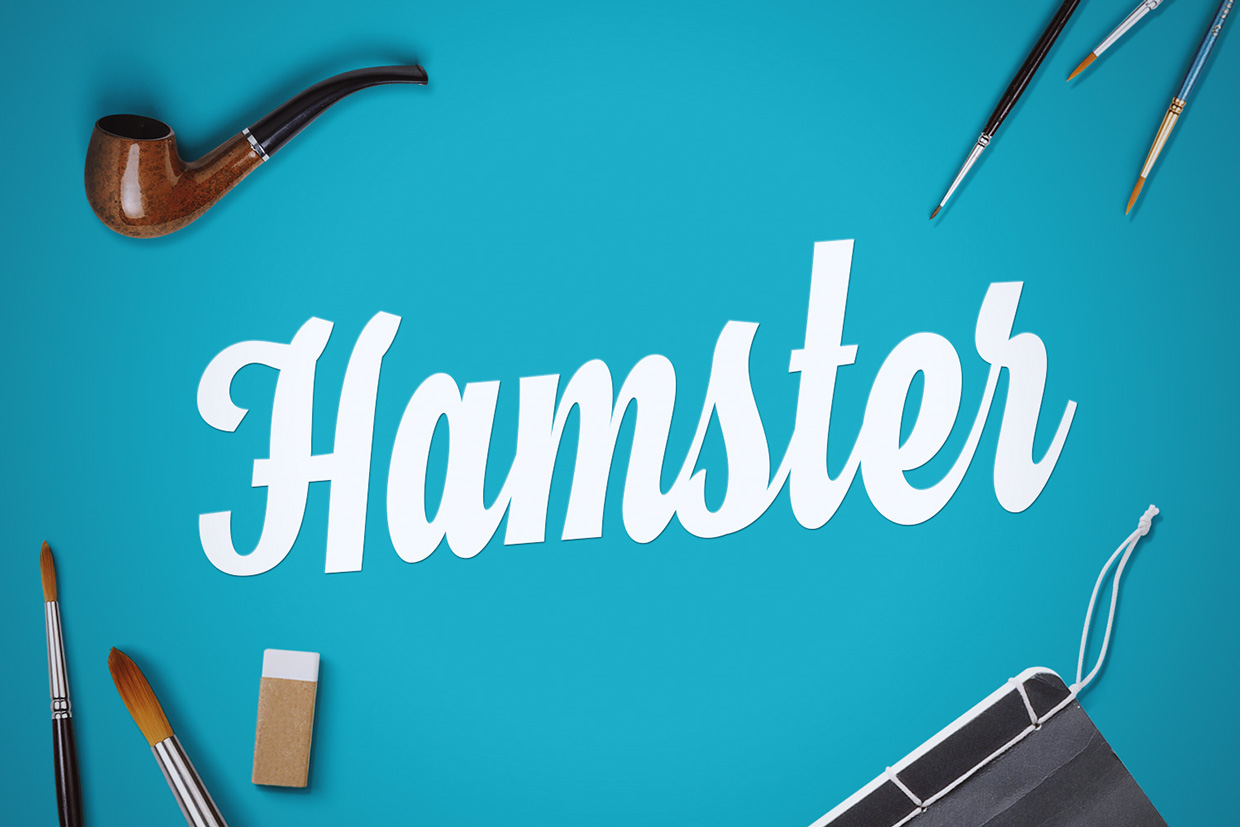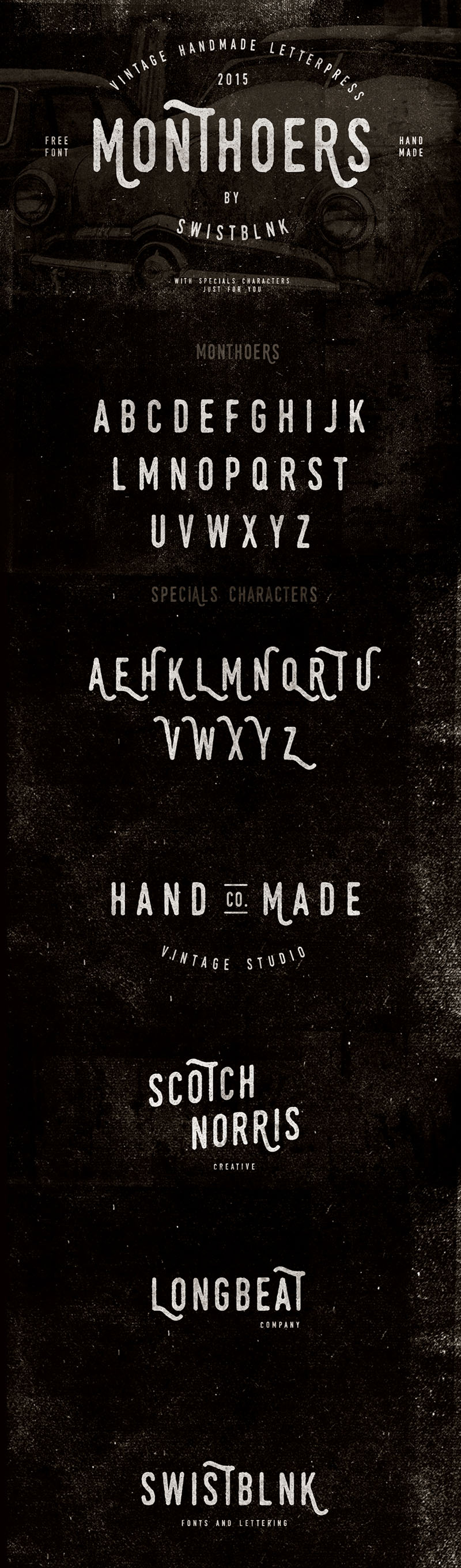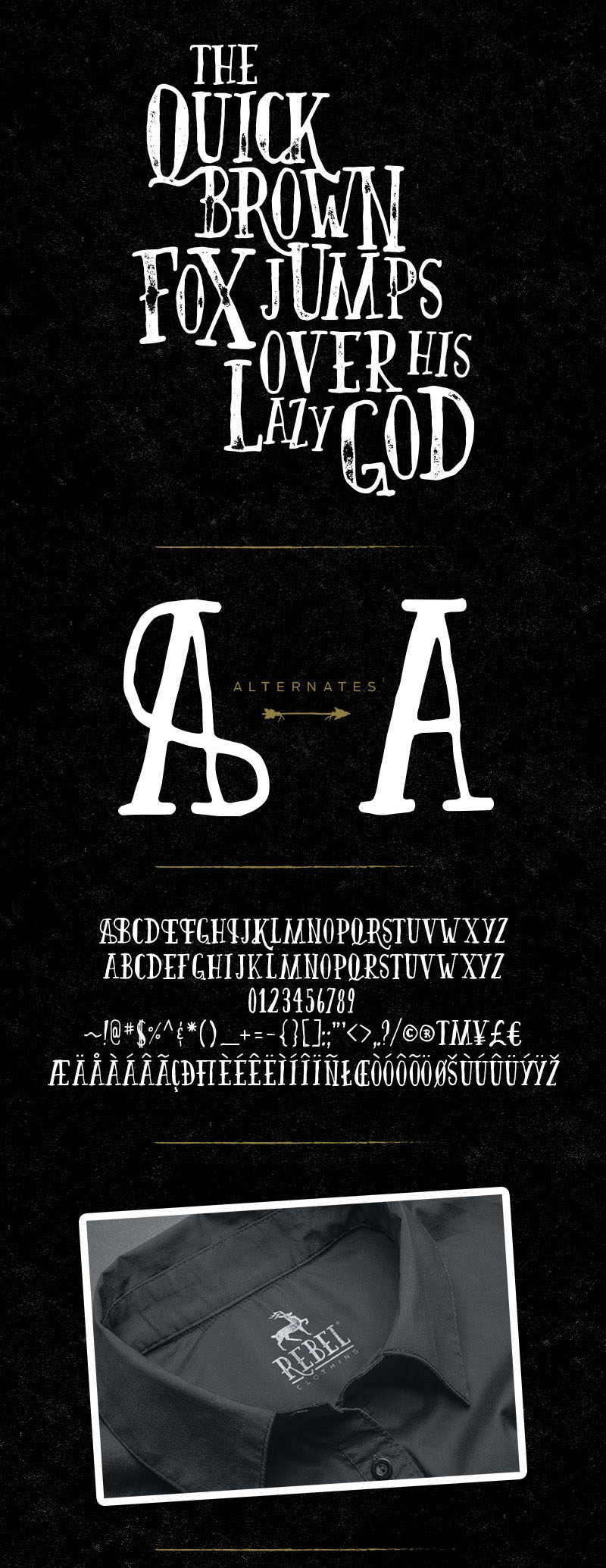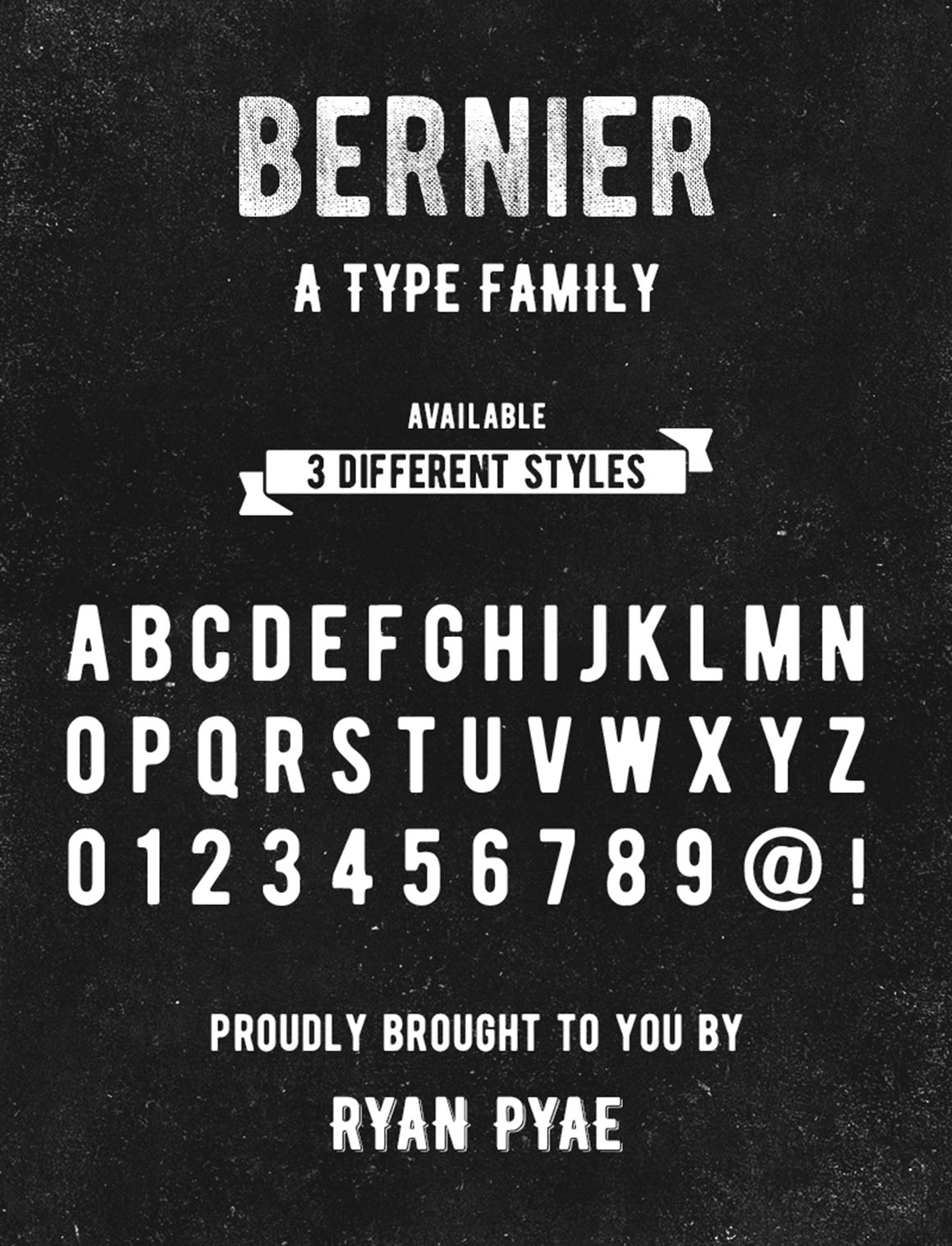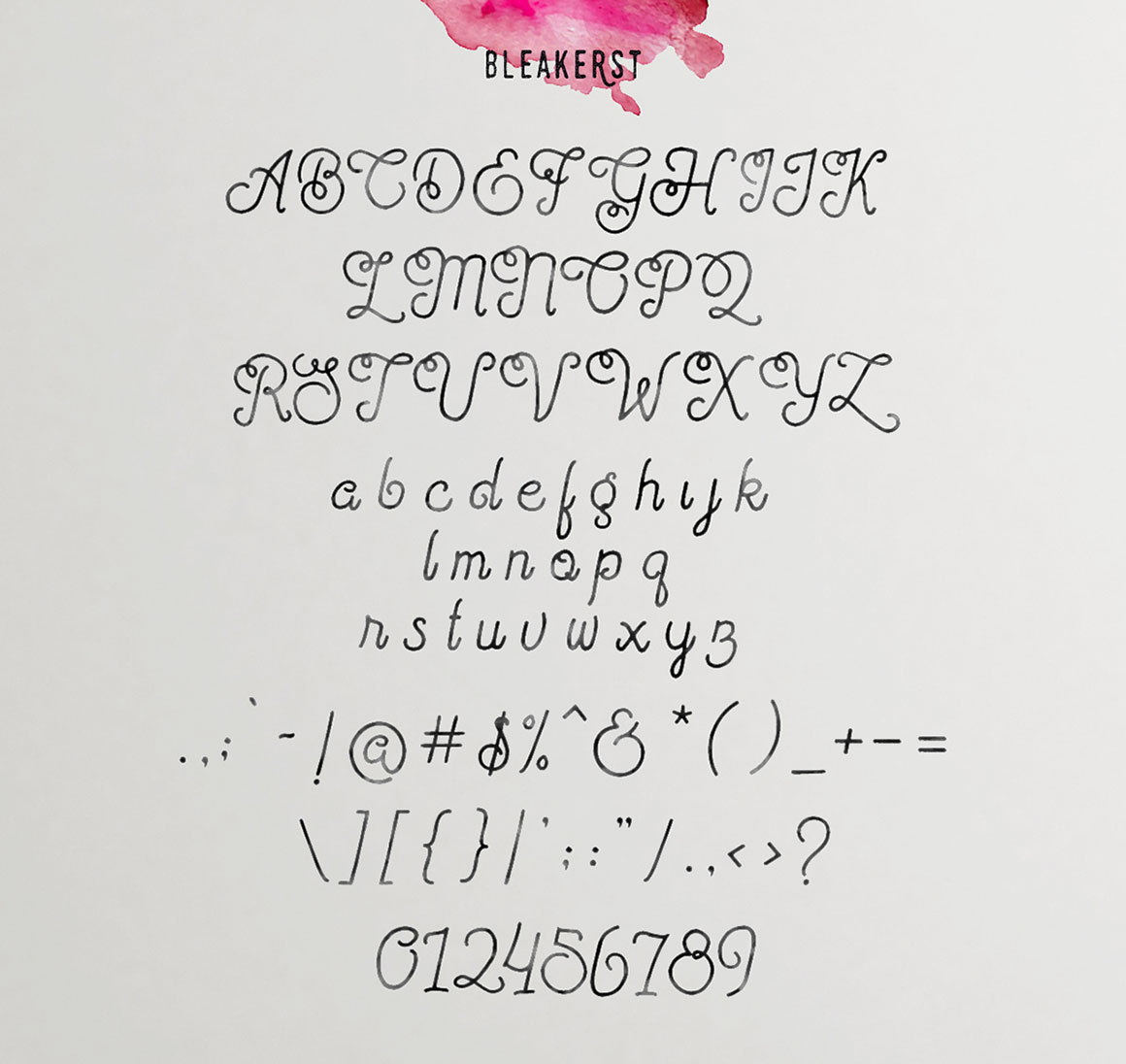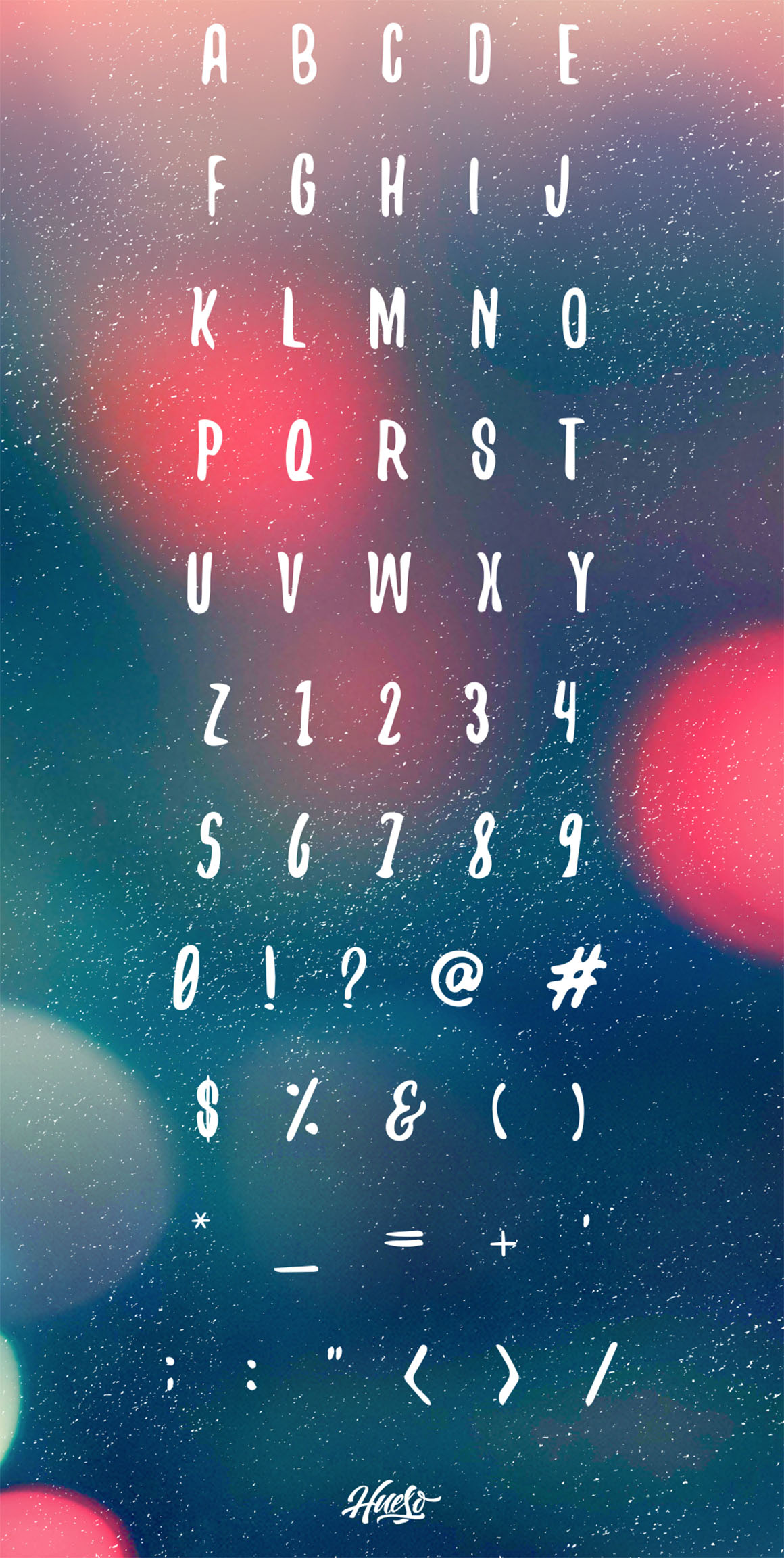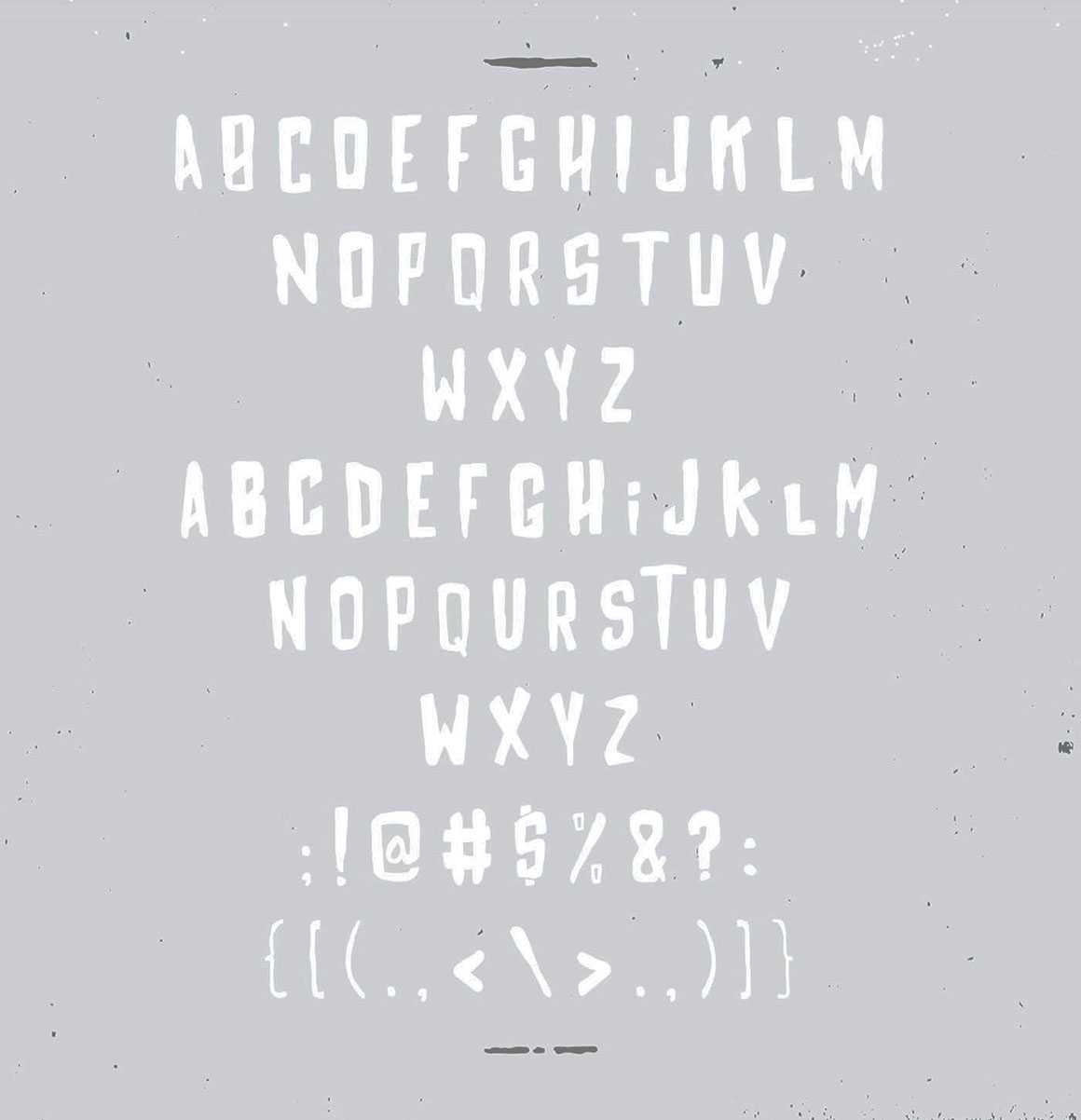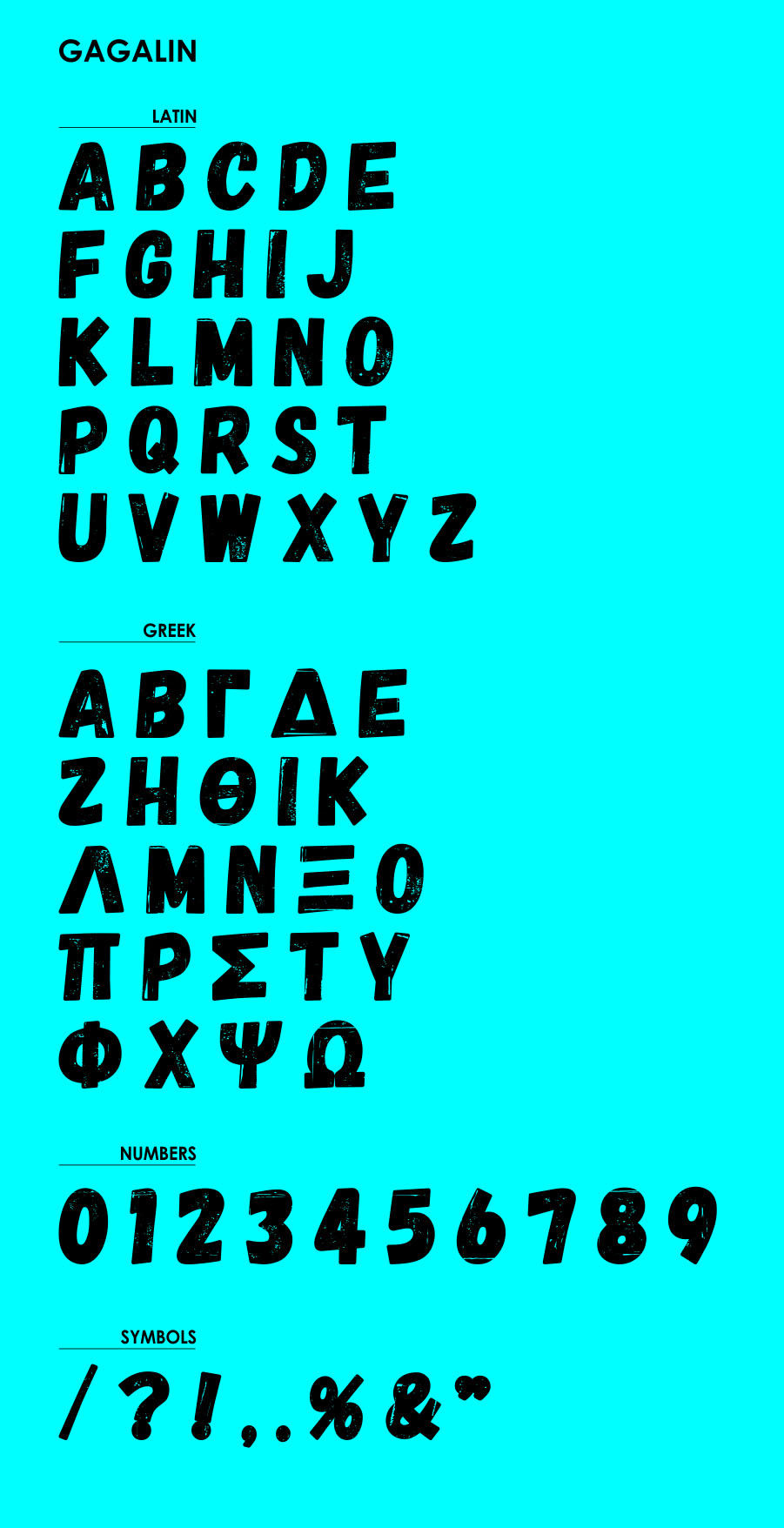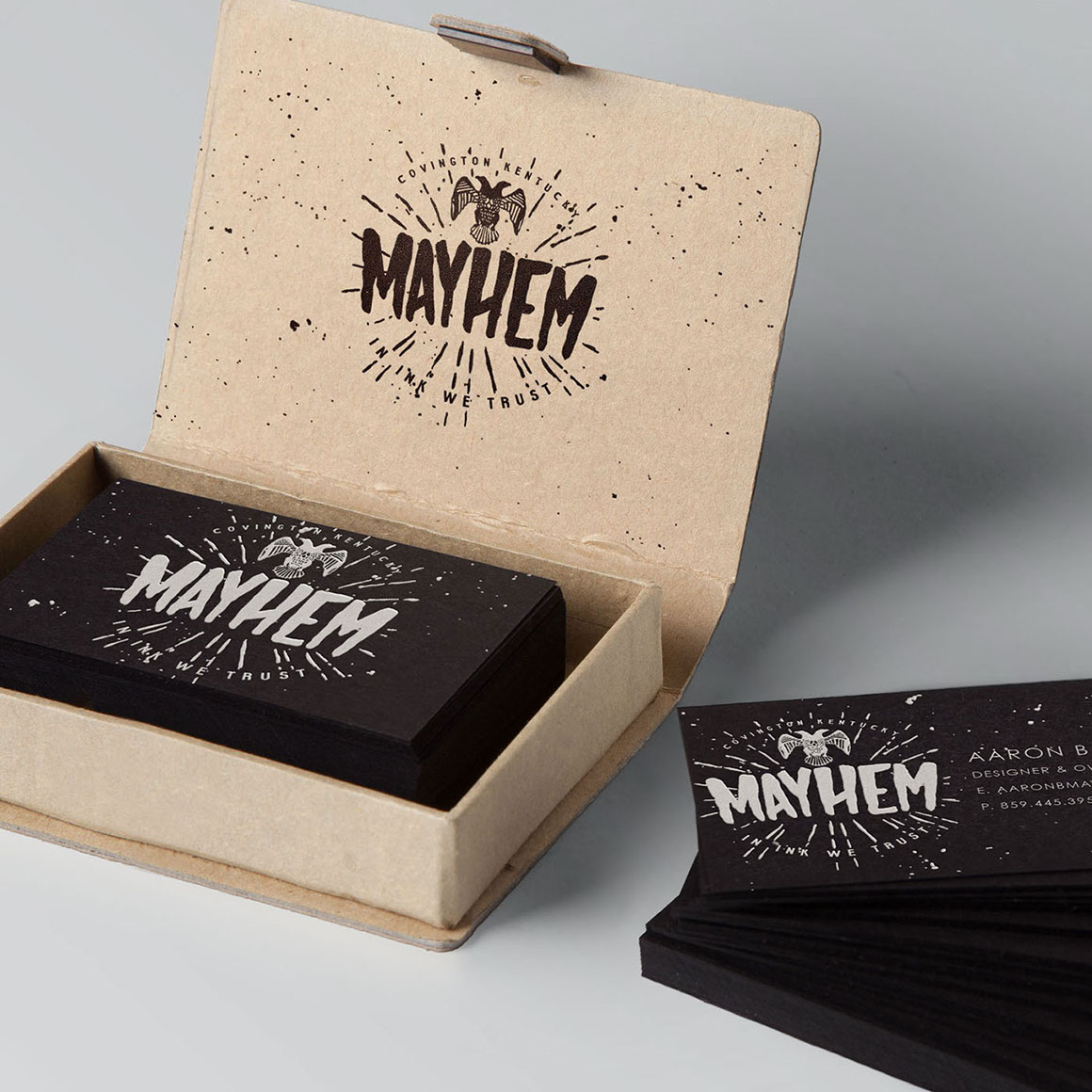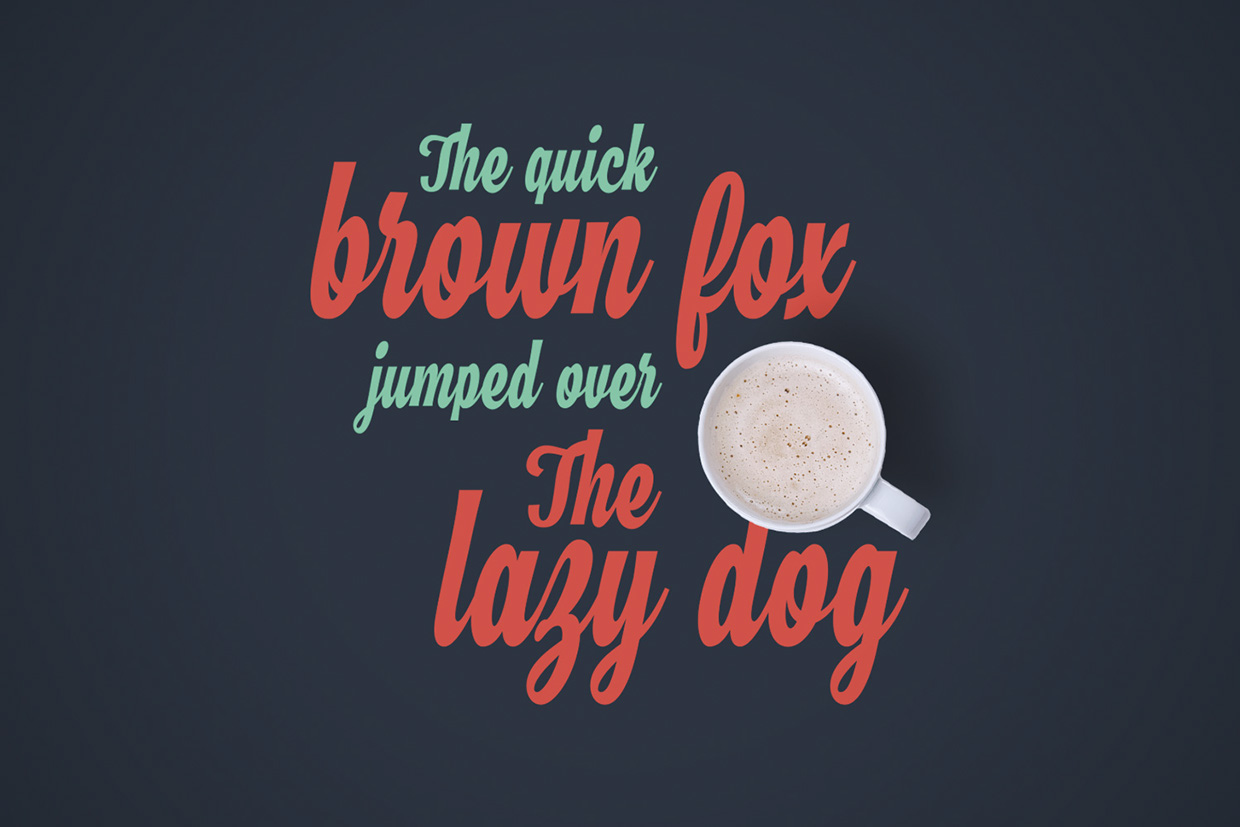
Dealjumbo Free Bundle vol.1 – 25 Custom Fonts!
Dealjumbo Free Bundle vol.1 contains 25 amazing custom fonts from 17 talented designers for FREE!
25 Amazing & FREE Custom Fonts
1. Oldways – Free Retro Font by Artimasa
This retro style custom font is from Artimasa. Oldways is a retro font that combines old western typography with the modern design style. It is highly suitable for poster, branding, logo, etc. You can easily give the feel of retro design style in a modern way into your project. Oldways font available in 2 styles: Regular and Italic. The good news is they’re both free to download and used in any personal or commercial projects. You can find the download link at the bottom of this post, enjoy!
2. Streetwear – Free Retro Font by Artimasa
This retro style custom font is from Artimasa. Streetwear is bold and stylish retro inspired script typeface suitable for logo, poster, branding, packaging and t-shirt design. It looks like 1960s and 70s fashion and sport related typeface, unique and fun at the same time. You can access Streetwear’s alternate characters by using OpenType savvy program such as Adobe Illustrator and InDesign.
3. Nurjan – Free Bold Font by Twicolabs
This retro style and bold custom font is from Twicolabs. Download and enjoy 😉
4. Dollar Bill – Free Bold Font by Twicolabs
This retro style and bold custom font is from Twicolabs. An all caps font / typeface that borrowed the letter from the money (dollar) and bank certificates. Also contained numerals and punctuations characters. Download and enjoy 😉
5. Monthoers – Free Vintage Grunge Font by Agga Swist’blnk
This retro/vintage grunge style custom font is from Agga Swist’blnk. An all caps font / typeface with amazing vintage style. Also contained special characters. Download and enjoy 😉
6. Runaway – Free Hand Drawn Font by Iulian Maftei
This retro/vintage hand drawn custom font is from Iulian Maftei. An all caps font / typeface with cool style. Download and enjoy 😉
7. Blenda Script – Free Retro Font by Seniors
This retro style and bold custom font is from Seniors. Blenda Script is a free experimental font inspired by lobster font. This bold vintage script can be used for various purposes: in magazines, posters, logos, badges etc. Download and enjoy 😉
8. Gist Light – Free Retro Font by Yellow Design Studio
This cool retro style and light custom font is from Yellow Design Studio. Download and enjoy 😉 Full version of this amazing font is here!
9. Good Vibes – Free Script Font by Cruzine Design
Free handdrawn script font from Cruzine DesignDownload & Enjoy 😉
10. Get Coffee – Free Script Font by Cruzine Design
Free handdrawn script font from Cruzine DesignDownload & Enjoy 😉
11. Not Perfect – Free Handwritten Font by Cruzine Design
Free handdrawn & cool script font from Cruzine DesignDownload & Enjoy 😉
12. Harlott – Free Handwritten Retro Font by Artimasa
This retro style custom font is from Artimasa. Inspired by classic brush lettering, Harlott Script gives an impression of straight brush calligraphy and natural hand lettering. It can be used as a logo, part of branding, headline, any display purposes, t-shirt design, etc. Harlott Script also contains of diacritic symbols that support many european languages.
13. Hamster – Free Script Font by Artimasa
This script custom font is from Artimasa. Hamster is a cursive typeface inspired by brush lettering and traditional sign painting. Suitable for branding/identity, clothing/t-shirt design, signage, headlines, poster, etc. Hamster Script was crafted carefully to equalize the dynamic flow and it’s legibility.
14. Nickainley – Free Script Font by Seniors
Nickainley  is a Monoline Script font from Seniors. Handwriting font with a touch of classic and vintage. In uppercase, lowercase characters, numeral and punctuation. Can be used for various purposes: logos, badges, wedding invitations, t-shirts, letterhead, signage, labels, news, posters, badges etc. Download and enjoy 😉
15. Bukhari – Free Script Font by Mikrojihad
This cool script custom font is from Mikrojihad. Bukhari Script is a bold monoline cursive font. Very usefull for various design project, for web or printing, such as a Logotype, Posters, Badges, Signage, Bussiness Card, T-shirt Design, or it can be anything. Bukhari Script contains almost 380 glyphs with several OpenType Features; Contextual Alternate, Stylistic Alternate, Standard Ligature & Fraction. The OpenType Feature can be used to create your own custom typography of  your design. How to use OpenType? Download and enjoy 😉
16. Sunn – Free Handwritten Font by Krisjanis Mezulis & Gatis Vilaks
This cool handwritten style custom font is from Krisjanis Mezulis & Gatis Vilaks. Download and enjoy 😉
17. Firefly – Free Hand Drawn Font by Sean Coady
This cool hand drawn custom font is from Sean Coady. Brand new hand drawn font that comes with a full set of glyphs as well as a few alternatives. Firefly is a quarky serif with loads of personality & charm. It works great for quotes, logos, posters, headlines, t-shirts and more! So what are you waiting for? Scroll on down to download it 😉
18. Bernier – Free Font Family by Ryan Pyae
This free vintage style custom font is from Ryan Pyae. Comes in 3 alternatives – regular, distressed & shade. Download & enjoy 😉
19. Bleakerst – Free Script Font by Agga Swist’blnk
This unique cursive script custom font is from Agga Swist’blnk. Modern font with vintage touch. Great for your new log designs. Download and enjoy 😉
20. Sensei – Free Brush Font by Ezeqviel Ergo
This free brush custom font is from Ezeqviel Ergo. Download & enjoy 😉
21. Mayhem – Free Hand Drawn Font by Aaron May
This cool hand drawn custom font is from Aaron May. Download & enjoy 😉
22. Froggy Pincess – Free Font by Fabien Despinoy
This cool free handdrawn custom font is from Fabien Despinoy. Download & enjoy 😉
23. Cecilia – Free Script Font by Hendra Maulia (Dirtyline Studio)
This elegant script custom font is from Hendra Maulia (Dirtyline Studio). Great for your new projects. Download and enjoy 😉
24. Gagalin – Free Grunge Font by Iordanis Passas
This unique grunge style custom font is from Iordanis Passas. Great for your new projects. Download and enjoy 😉
25. Yeah Papa – Free Font by Rafa Miguel
This unique hand drawn style custom font is from Rafa Miguel. Great for your new projects. Download and enjoy 😉